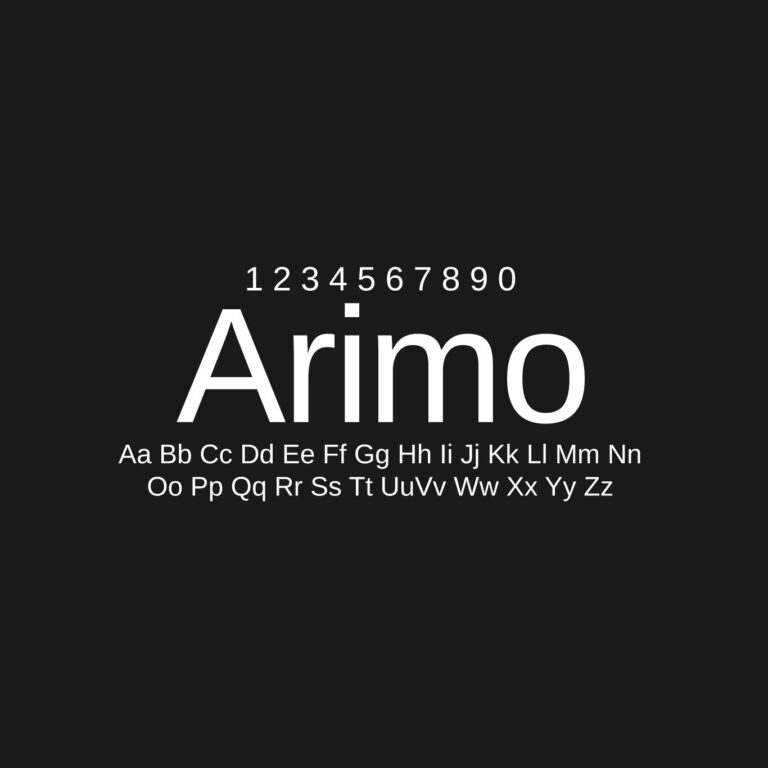
Arimo is a sans-serif typeface designed by Steve Matteson as a metrically compatible alternative to Arial. It has a clean structure, practical proportions and strong screen readability, making it useful for documents, websites, user interfaces, presentations, academic layouts, business materials, editorial design and everyday professional typography.
Font Name: Arimo
Font Type: Sans Serif
Category: Neo-Grotesque Sans Serif / Arial Alternative
Visual Style: Clean, neutral, readable, practical, professional
Best For: Documents, websites, UI design, presentations, academic layouts, business materials and editorial typography
Designer: Steve Matteson